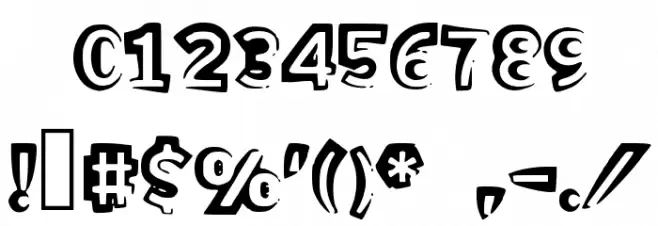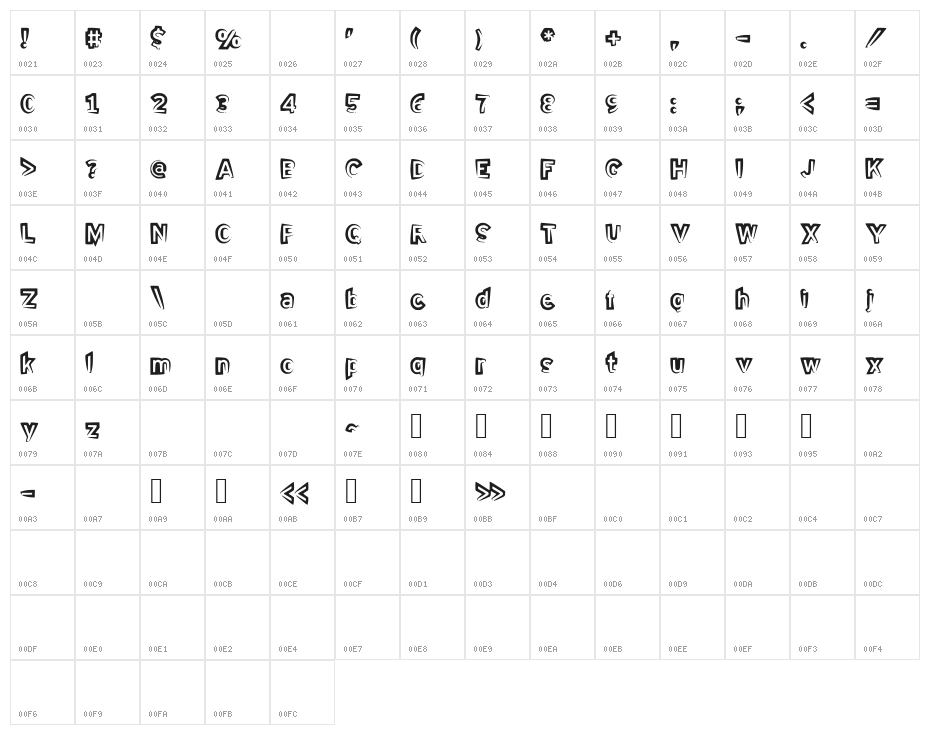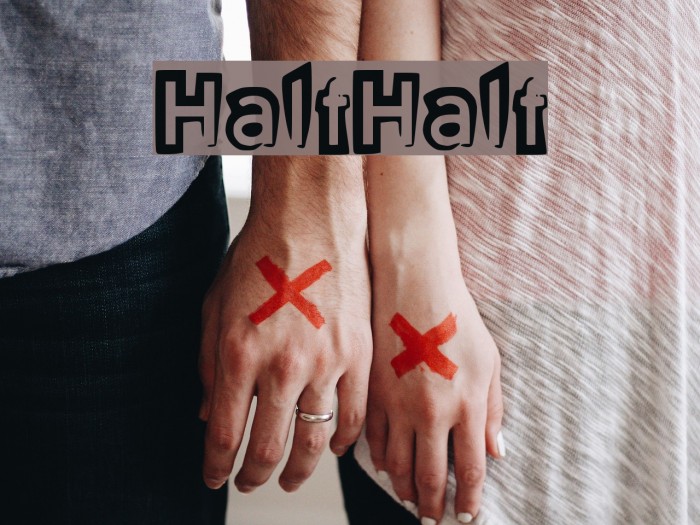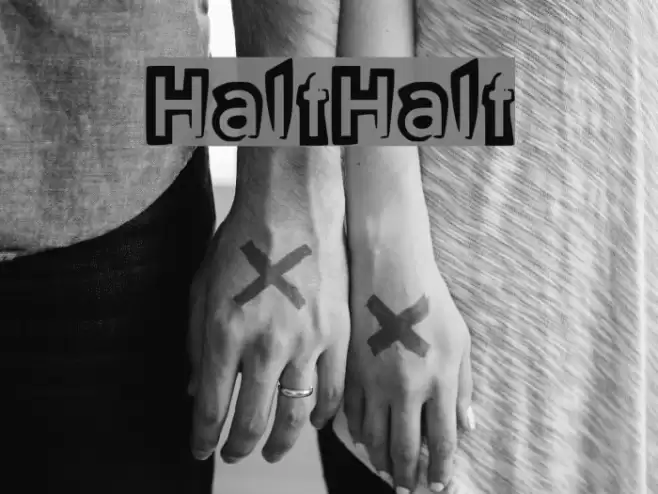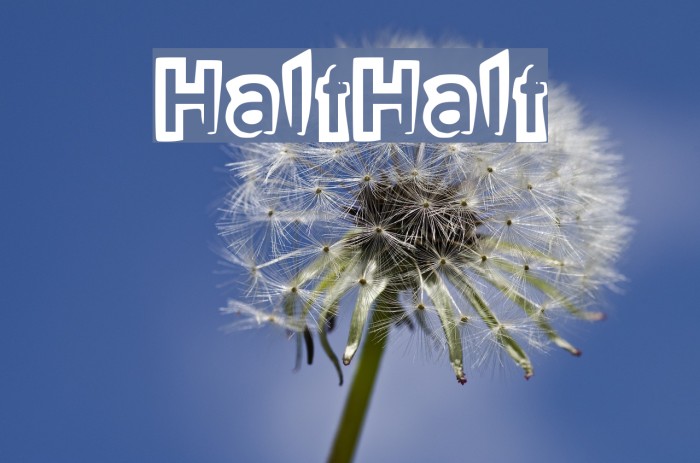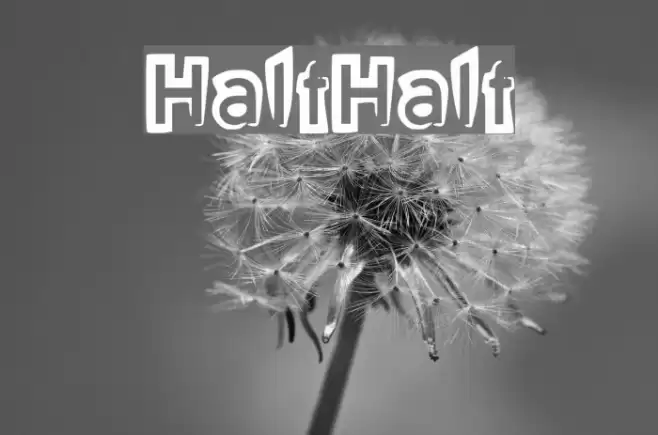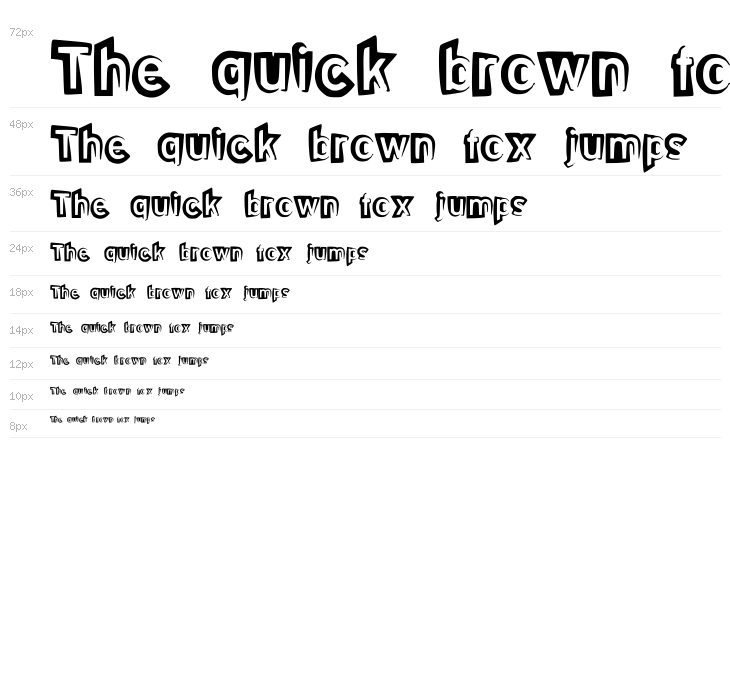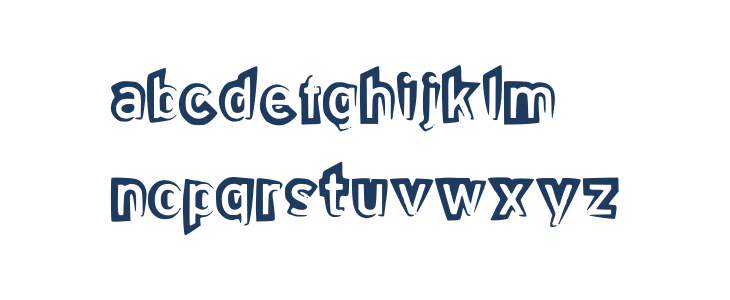
HalfHalf Font
HalfHalf Description
This font features a playful and bold design with a unique split style, where each character appears to be divided into two contrasting halves. The left side of each character is solid and bold, while the right side is outlined and slightly offset, creating a dynamic and eye-catching effect. This duality gives the font a sense of movement and energy, making it ideal for creative and informal applications. The characters are well-defined with a consistent stroke width, and the overall appearance is both modern and whimsical. The font includes a full set of uppercase and lowercase letters, numbers, and a variety of special characters, ensuring versatility in its use.
Proposed ProjectsIdeal for posters, children's books, comic strips, and playful branding.